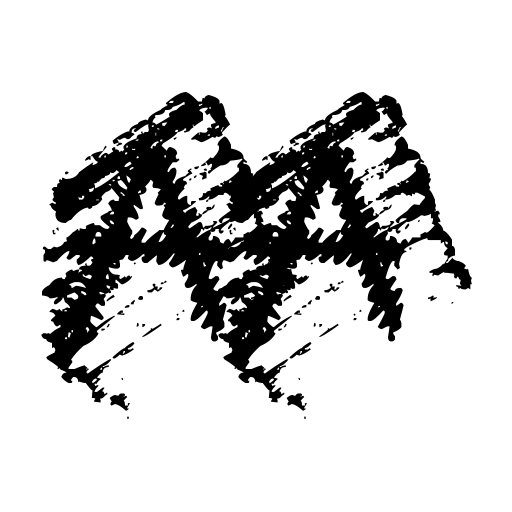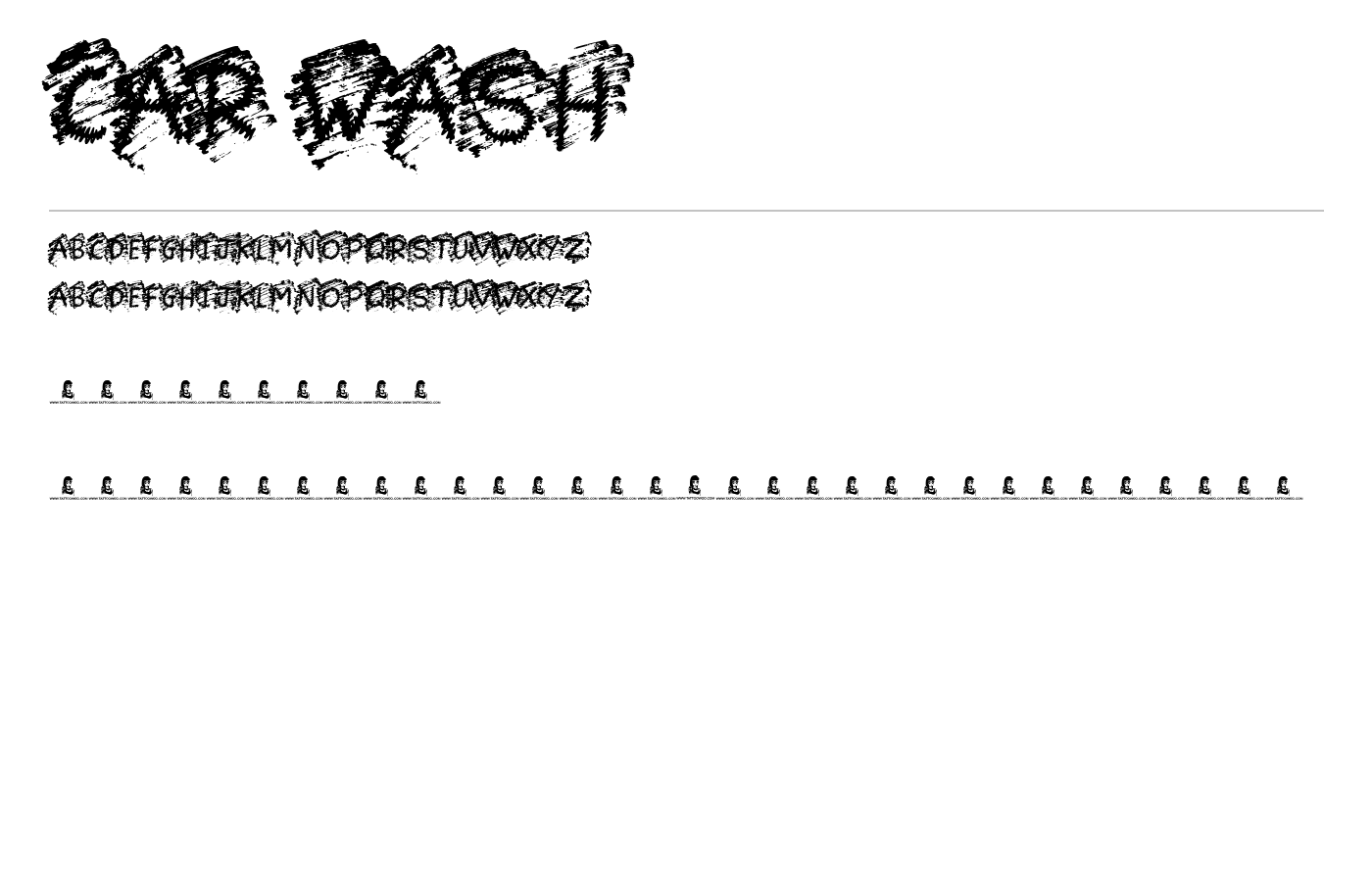
Car Wash Font is a bold, rough-textured sans serif typeface that mimics a distressed, scratched surface, evoking a sense of grunge and raw energy. Its irregular strokes and dynamic, ink-brush style give it a playful yet rugged personality, making it ideal for eye-catching logos, posters, and branding that demand an edgy, urban vibe. This font stands out best in display uses where a strong, unconventional impact is desired.
Car Wash Font
About Car Wash Font